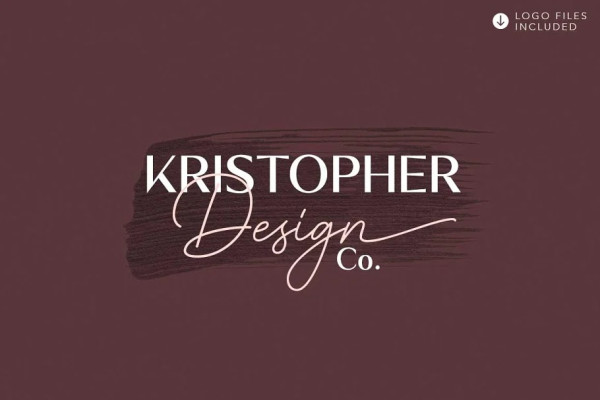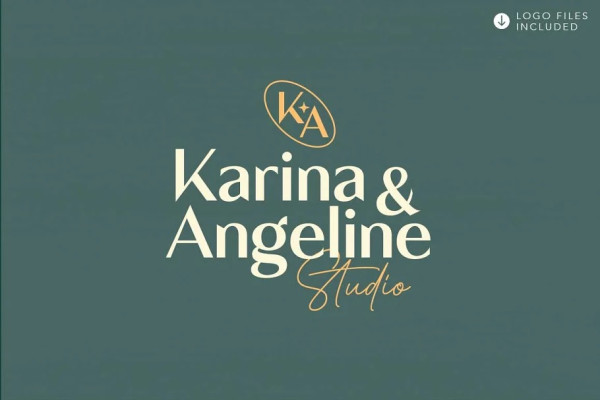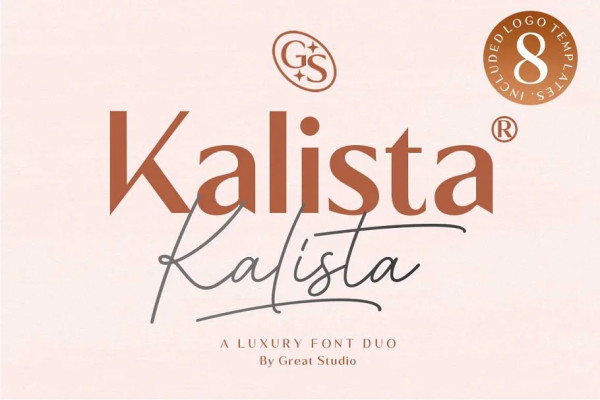
Kalista Font Duo
Kalista Font Duo, is a luxury font. which comes with a combination of modern and elegant fonts, namely serif and signature style. You can combine them to create beautiful typography. This handcrafted style makes it perfect for use in all your design projects be it logos, labels, packaging designs, blog titles, posters, wedding designs, social media posts, Instagram designs, invitation cards, art quotes, home decor, book / title covers, etc.